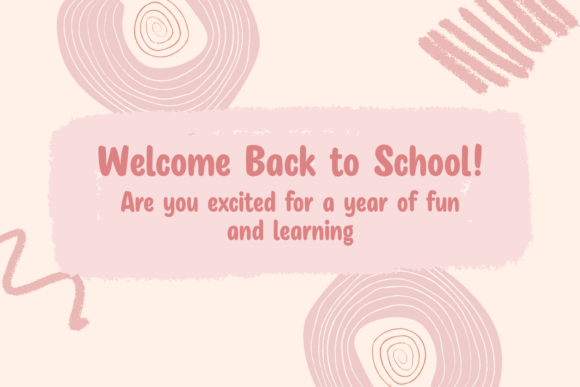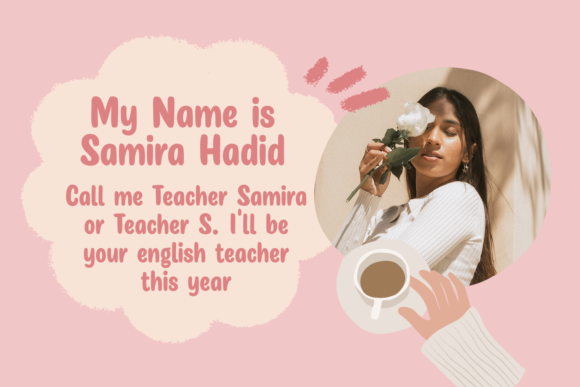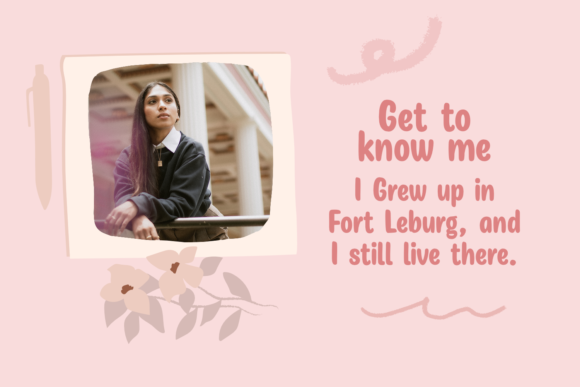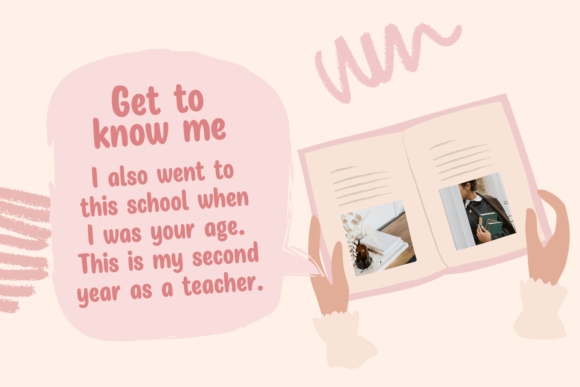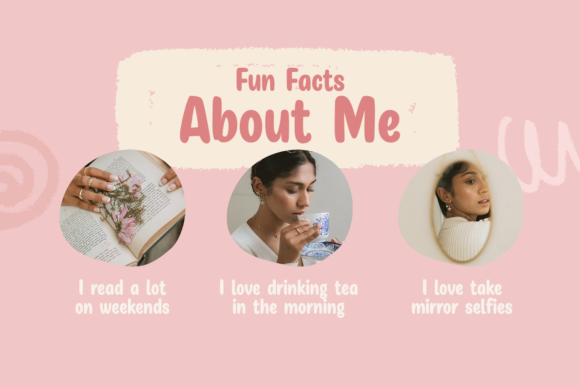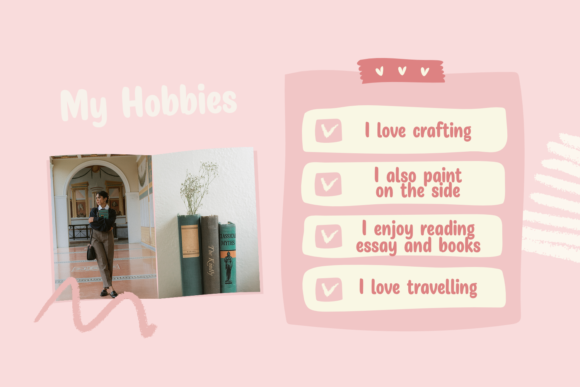
Introduction to Scholarly Ambition Font Font
Fonts play a crucial role in design, and the Scholarly Ambition Font font is a typeface that brings both character and versatility to any project. Whether you’re working on a branding project, a website, or a print design, the Scholarly Ambition Font font offers a unique style that can elevate your work.
Scholarly Ambition is a cute and fun display font perfect for adding a playful element to your next craft or design project.
Key Features of Scholarly Ambition Font Font
Why Choose Scholarly Ambition Font Font?
The Scholarly Ambition Font font is more than just a typeface – it’s a design tool that helps you communicate your message with style and clarity. Its unique character set and versatile design make it suitable for a wide range of applications, from elegant invitations to bold headlines.
With its carefully crafted letterforms and balanced proportions, the Scholarly Ambition Font font ensures readability and visual appeal across all mediums.
What makes Scholarly Ambition Font font special?
The Scholarly Ambition Font font stands out with its unique design, exceptional readability, and versatility across various design applications.